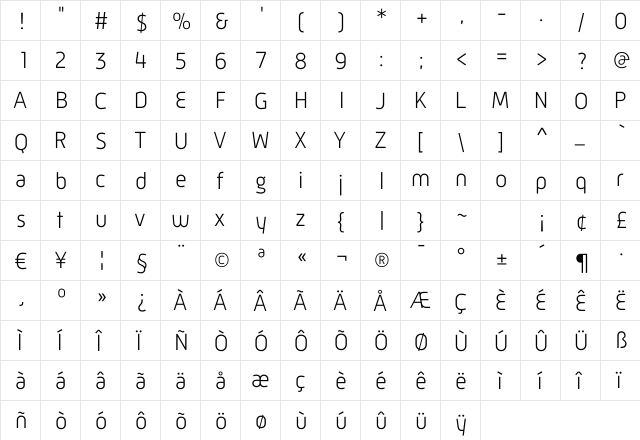
Mic 32Light Regular
Design Context for Mic 32Light Typeface
Mic 32Light takes a measured approach to typography — its balanced proportions and neutral character make it a reliable workhorse for both digital and print work. Its slender proportions lend an understated elegance to any composition.